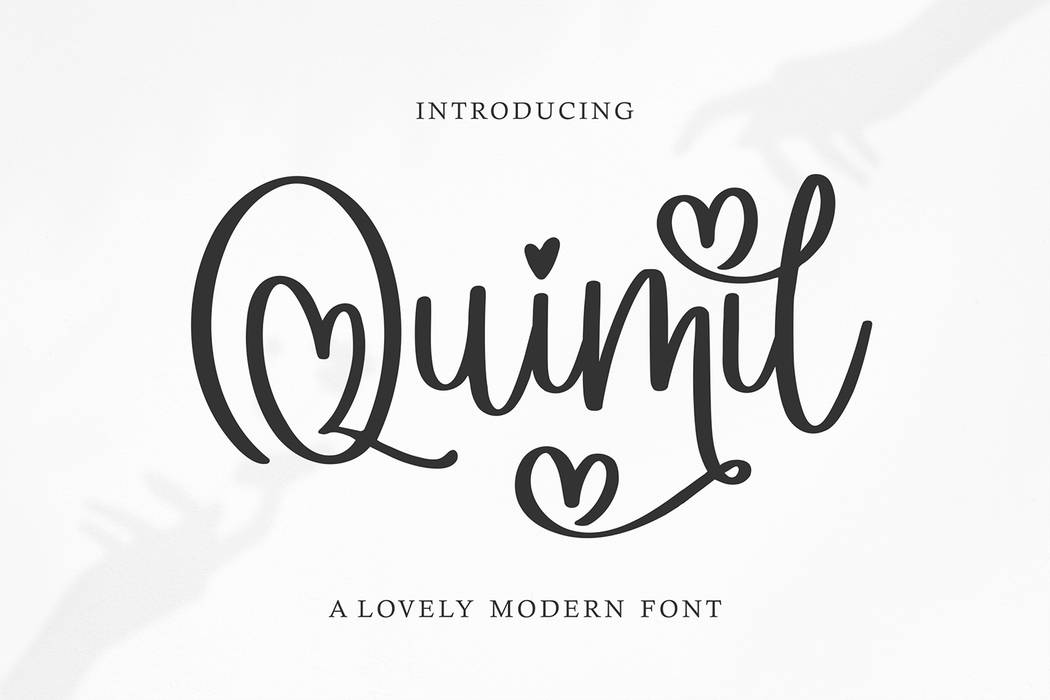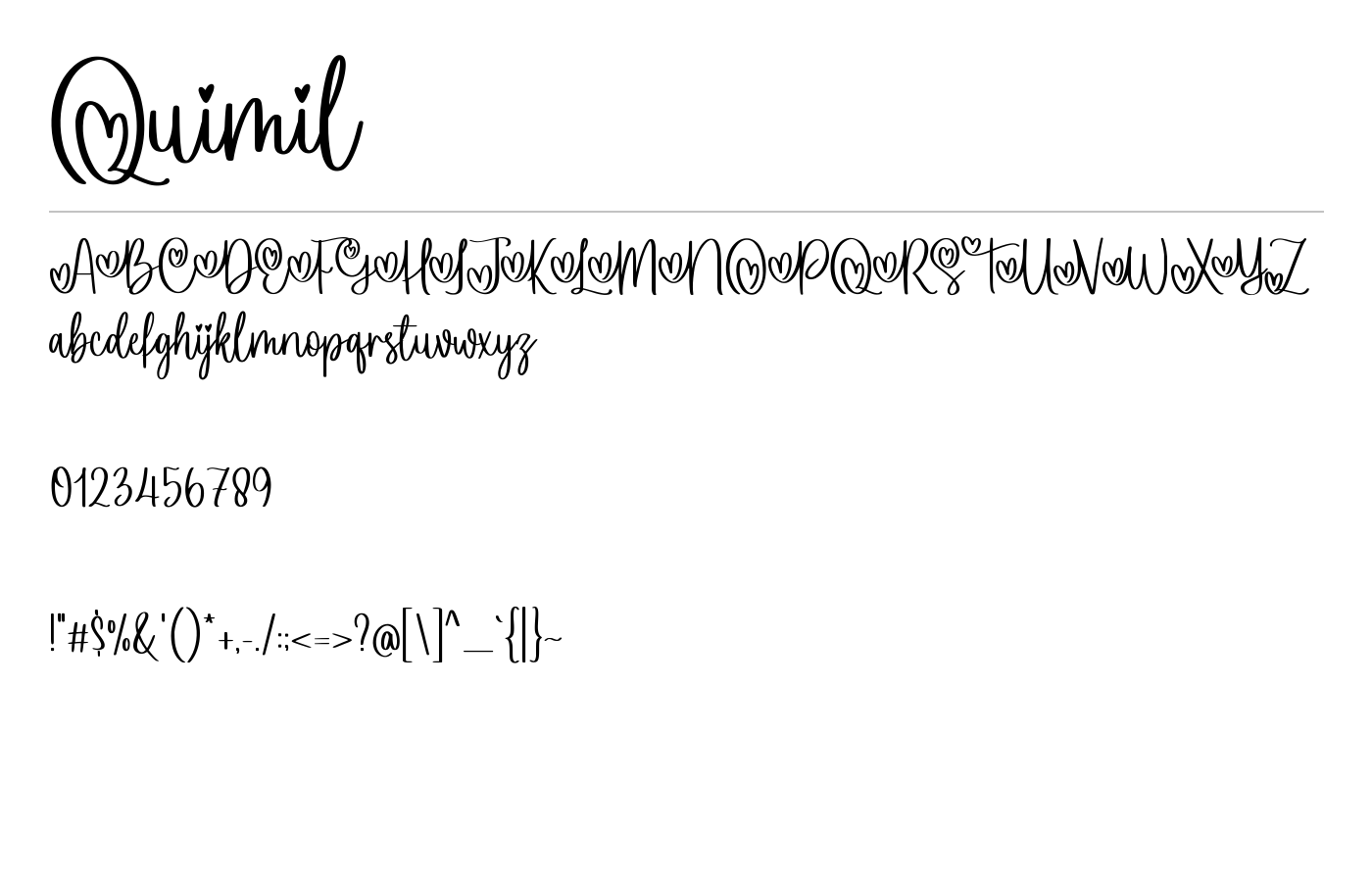
Quimil is a whimsical script font featuring playful, heart-adorned uppercase letters and elegant, flowing lowercase forms. Its light weight and tall, narrow shapes lend a charming, delicate feel perfect for romantic or feminine designs. This font works beautifully for invitations, branding, and artistic projects that seek a touch of joyful, handmade personality.
Quimil Font
About Quimil Font